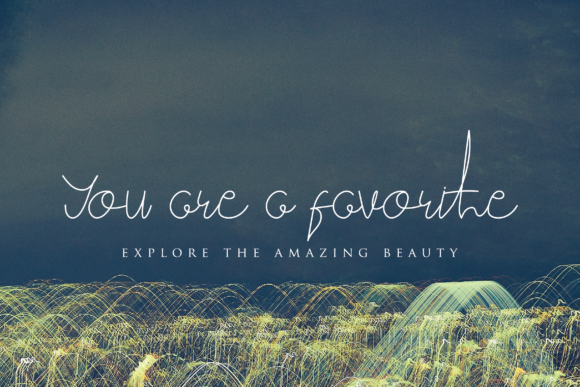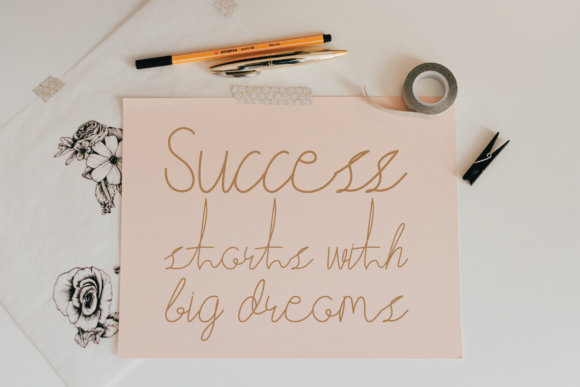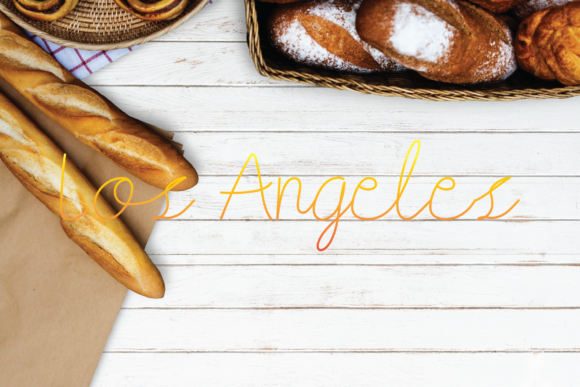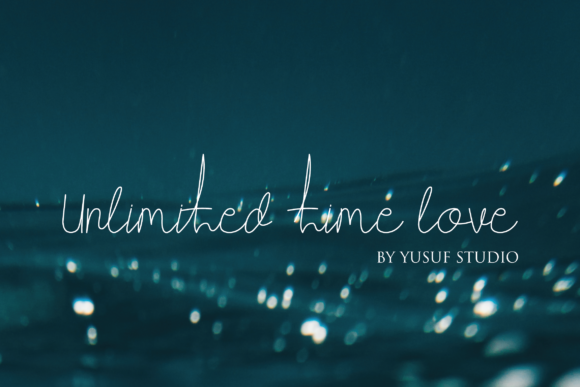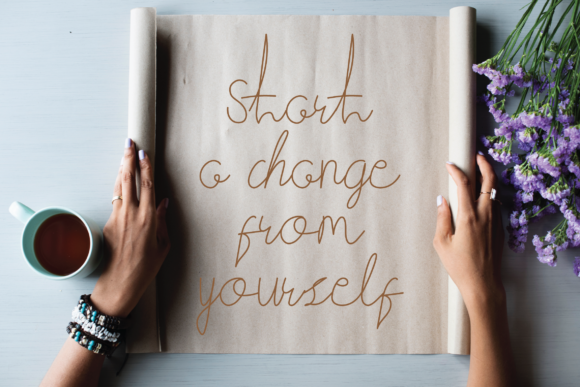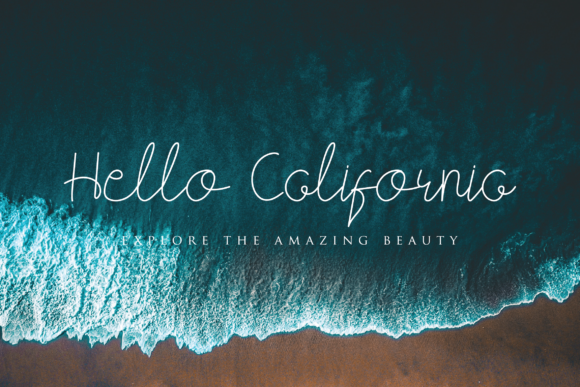
Amoera Signature Font
About Amoera Signature Font
The Amoera Signature is a stylish handwritten font. It has a modern and elegant look and will add a natural classic look to your designs.
It’s perfect for any extraordinary project that requires a sense of handwriting.